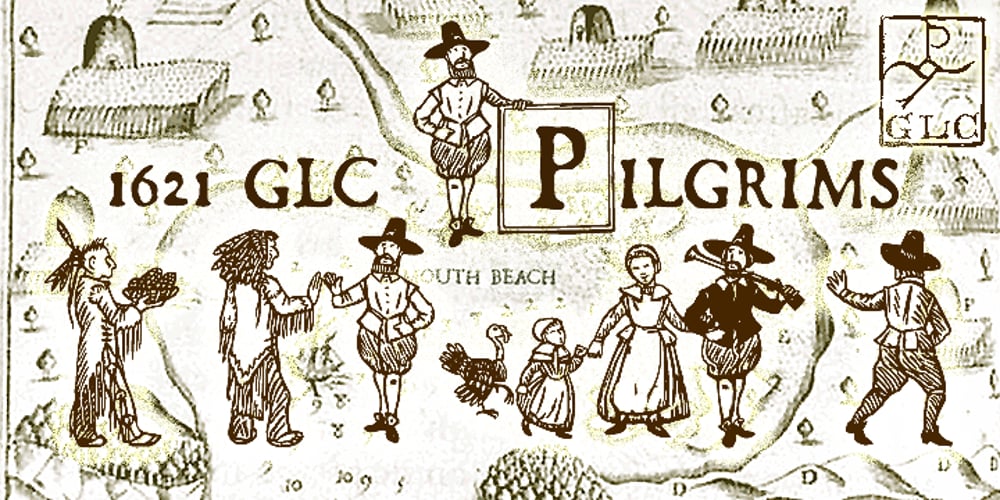
1621 GLC Pilgrims Font Family was designed by published by GLC. 1621 GLC Pilgrims contains 1 styles and family package options. This font was created with inspiration from the wood blocks carved for chapbooks, posters, calendars or newspaper in the late 1500’s and early 1600’s. We have tried to keep their innocence and rough style. It has been conceived as an homage to the “Pilgrim fathers” landing in Plymouth Bay in 1620 and celebrating the first Thanksgiving with Native Indians in autumn, 1621. The font, consisting of two English capital alphabets (so, without any accented characters): Initials and caps, and a lot of separate figures added, is especially improved by strong enlargments, 72 pts and more, and has very good results when printed.